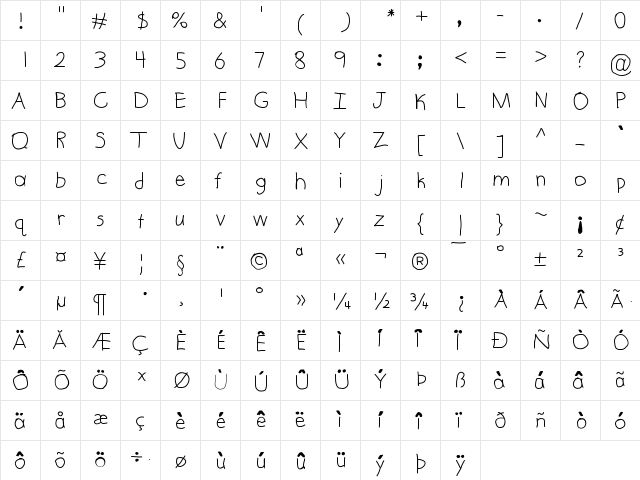
Lawson Medium
Design Context for Lawson Typeface
Lawson is a composed and adaptable typeface that performs quietly and consistently across a wide range of design contexts.
Pro Tip: Pair Lawson with a font of contrasting weight or personality to build a more expressive typographic hierarchy.